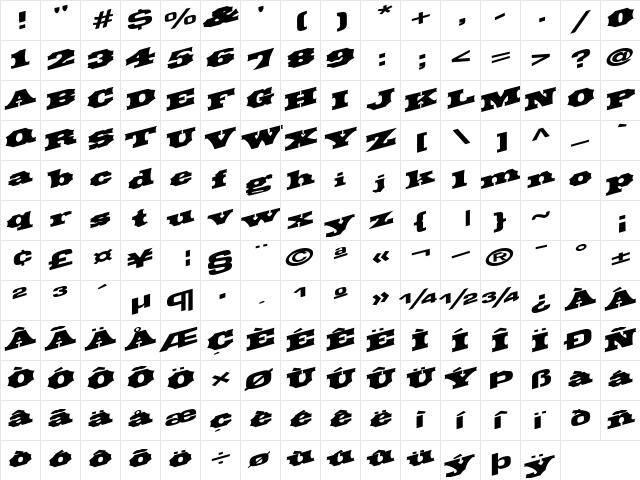
Under Regular
Design Context for Under Typeface
Under is a composed and adaptable typeface that performs quietly and consistently across a wide range of design contexts.